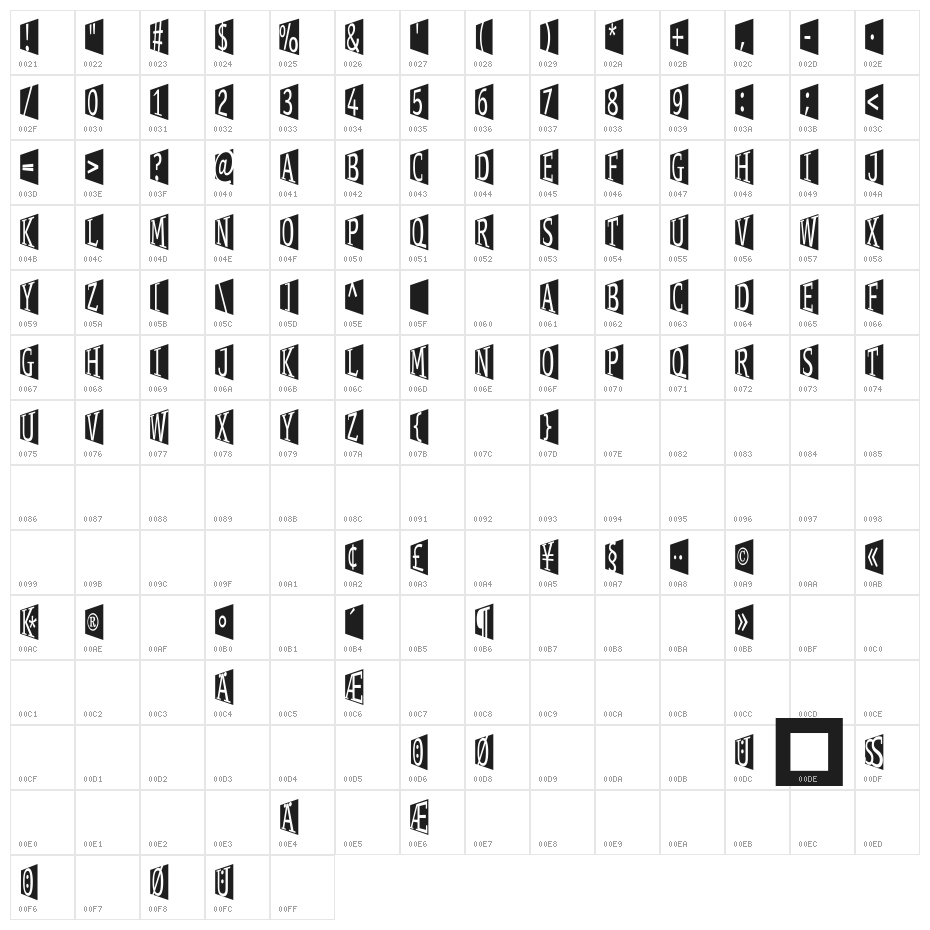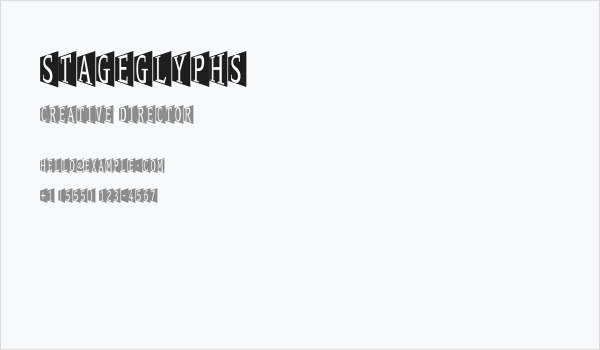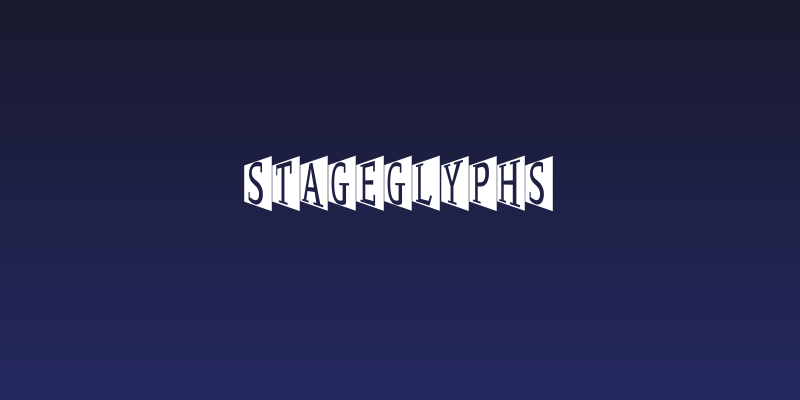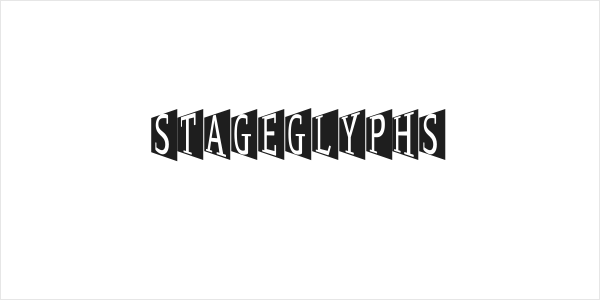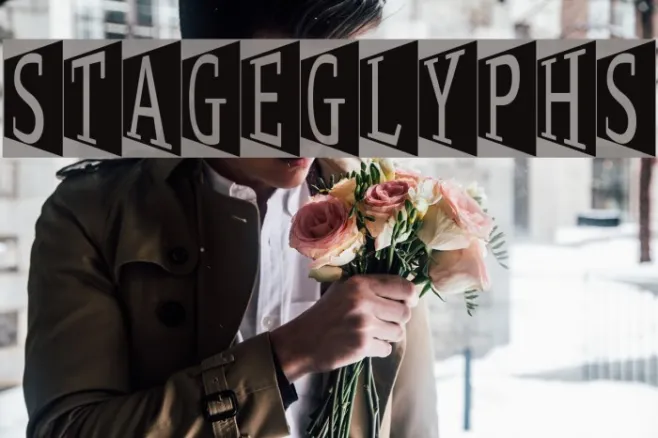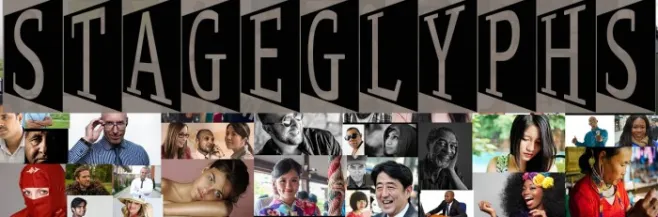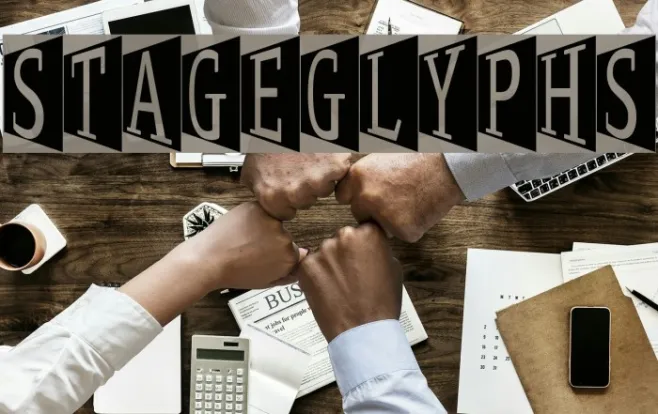
StageGlyphs Font
StageGlyphs Description
This font features a bold and dynamic design with a three-dimensional effect, where each character appears to be tilted or rotated, giving a sense of depth and movement. The letters are enclosed within black rectangular blocks, enhancing the illusion of perspective. The typeface is characterized by its strong, serif style, with sharp edges and a classic feel. The numbers and special characters follow the same design principles, maintaining consistency across the set. This font is visually striking and commands attention, making it ideal for impactful design projects.
| Proposed Projects | Ideal for posters, signage, theatrical productions, and any project requiring a dramatic and eye-catching typeface. |